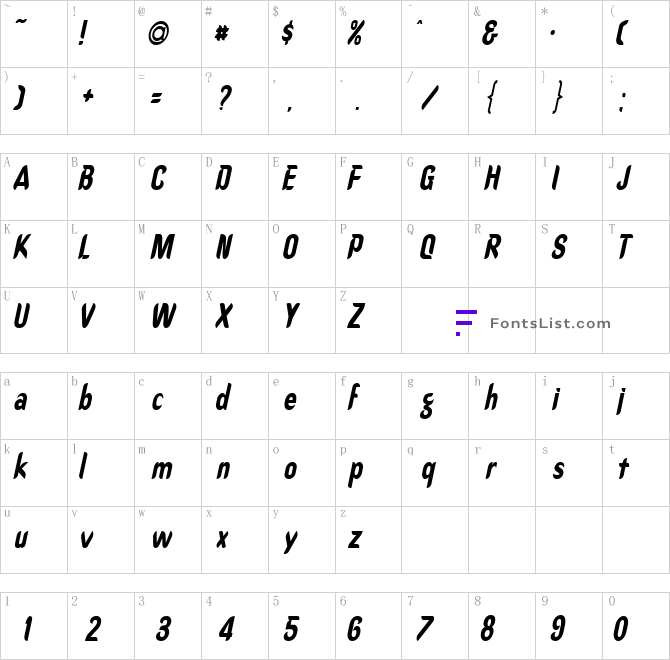
- Font Name:Callimarker-Condensed
- Subfamily: Italic
- Full Name:Callimarker-Condensed Italic
Callimarker-Condensed-Italic.ttf is a very beautiful artistic font, Callimarker-Condensed-Italic.ttf is widely used in the design and printing of various books and pictures,Callimarker-Condensed-Italic.ttf has a strong visual impact,Callimarker-Condensed-Italic.ttf is a commonly used font in newspapers, magazines and books, and is used in posters, e-commerce Poster design, store design, logo design, font design and other fields.Callimarker-Condensed-Italic.